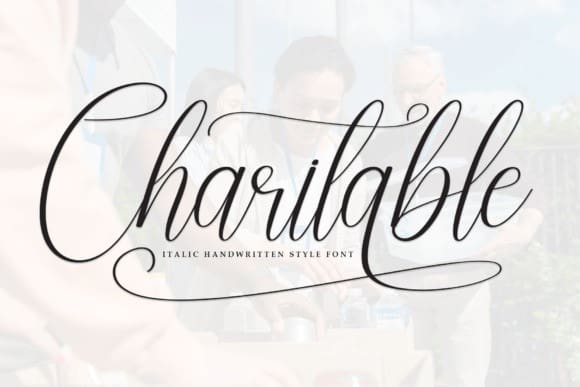
Charitable Font
Charitable Font is a versatile and compassionate typeface that reflects the spirit of giving and making a positive impact. With its soft curves and friendly letterforms, Charitable Font conveys a sense of warmth and approachability. It is perfect for non-profit organizations, charity events, and projects aimed at promoting social causes. This font spreads a message of compassion and generosity, inviting readers to engage with meaningful content and make a difference in the world.